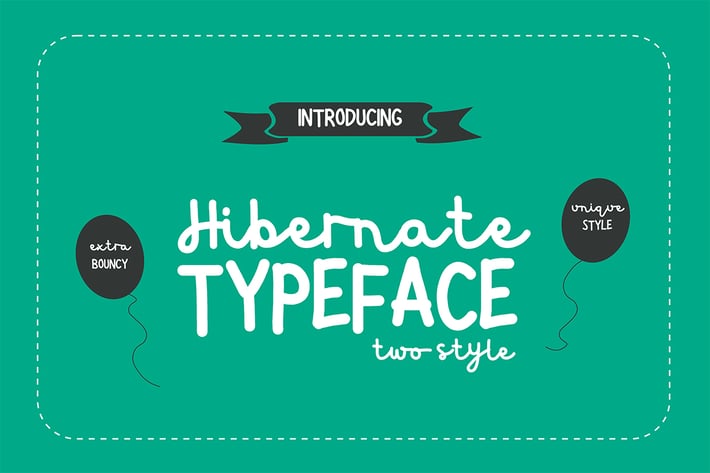
Hibernate Two Style Font
You may not think that there are fonts like this. But, do not worry about your need for art to be fulfilled with this font. You can use these fonts for a variety of purposes of design, such as designing a T-shirt, logo, or even design with respect to words of motivation.